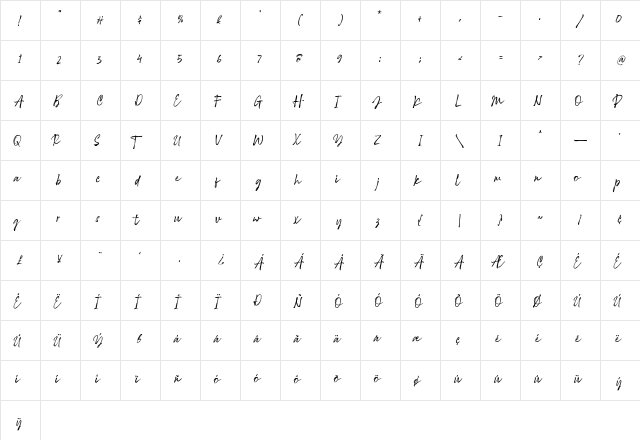
Rattu Aqilla Regular
Design Context for Rattu Aqilla Typeface
Rattu Aqilla is a composed and adaptable typeface that performs quietly and consistently across a wide range of design contexts.